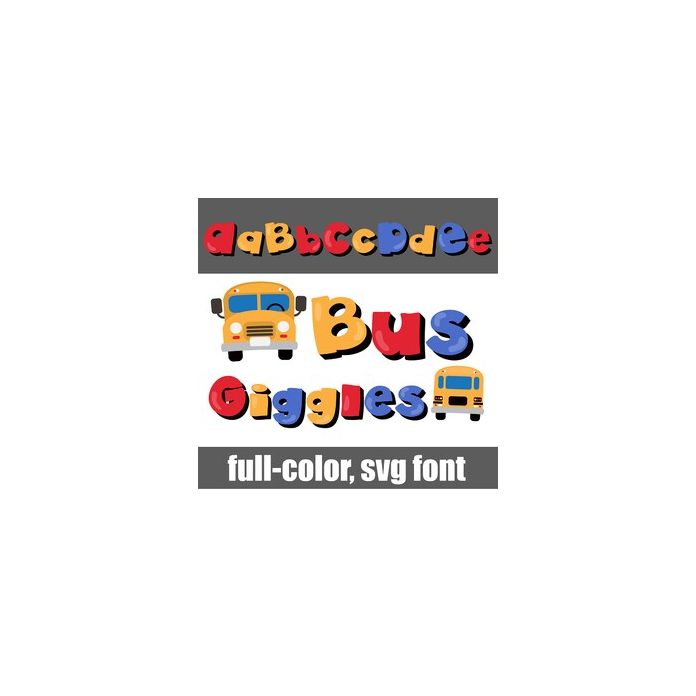
This full-color font features whimsical sans serif lettering in primary colors with heavy black shadows. Type the greater than and less than glyphs for a front and back school bus image. There is an alt case w/ additional colors you can access through your system or Silhouette's glyph map.